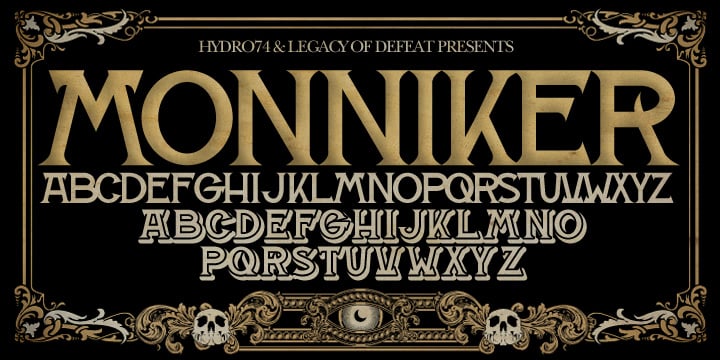
H74 Monniker Font Free Download - Command attention with this bold, urban-inspired typeface that brings street credibility to your designs! Commercial use requires a license purchase, but you can download the free version to test its urban vibe.
Where Can You Use H74 Monniker Font?
This powerhouse font dominates in:
• Streetwear branding (perfect for urban apparel and sneaker culture)
• Hip-hop album covers (brings that authentic graffiti edge)
• Skateboard deck graphics (raw, unfiltered street style)
• Barbershop/salon branding (urban chic with attitude)
Why Is H74 Monniker Font Exciting?
H74 Monniker delivers hard-hitting urban typography with its thick strokes and slightly distressed edges. It captures the raw energy of city walls while maintaining perfect legibility - the ultimate fusion of street art and professional design.
H74 Monniker Font Family
The complete urban toolkit includes:
• H74 Monniker Regular (classic bold weight)
• H74 Monniker Outline (hollow street style)
• H74 Monniker Stencil (spray paint ready)
• H74 Monniker Shadow (3D blockbuster effect)